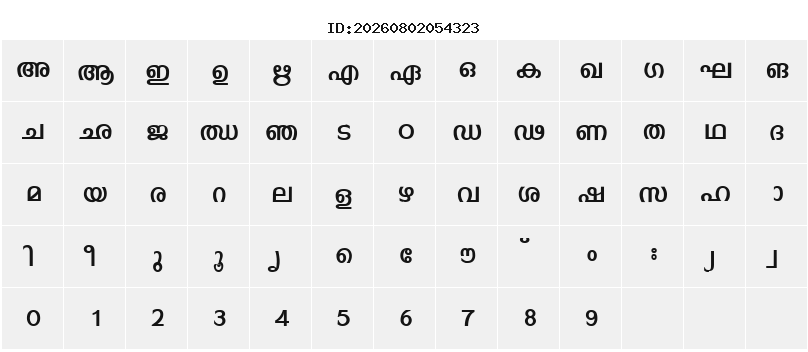
• Font Name: ML-DPS Karishma2
• Full Font Name: ML-KarishmaS Bose2
About ML-DPS Karishma2.ttf
ML-DPS Karishma2.ttf is a modern, elegant sans-serif font designed for ultimate readability and visual harmony. Perfect for branding, headlines, web design, and print materials.